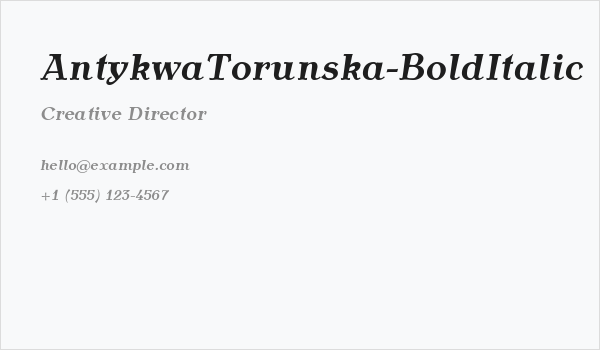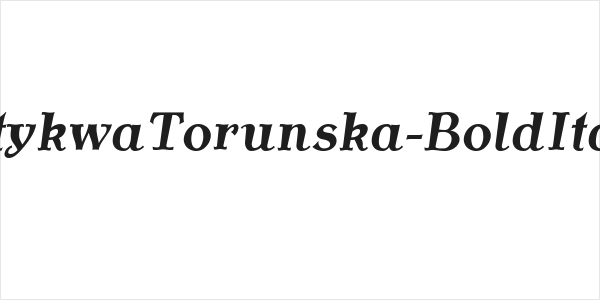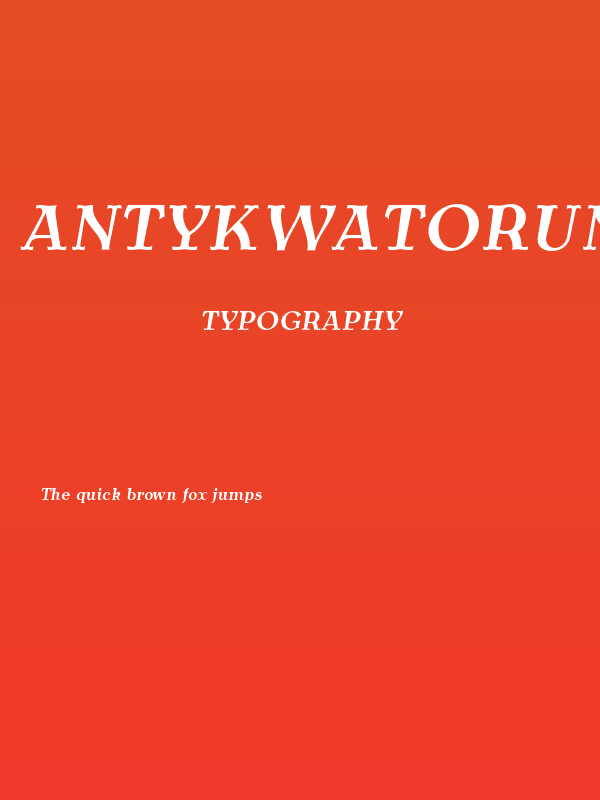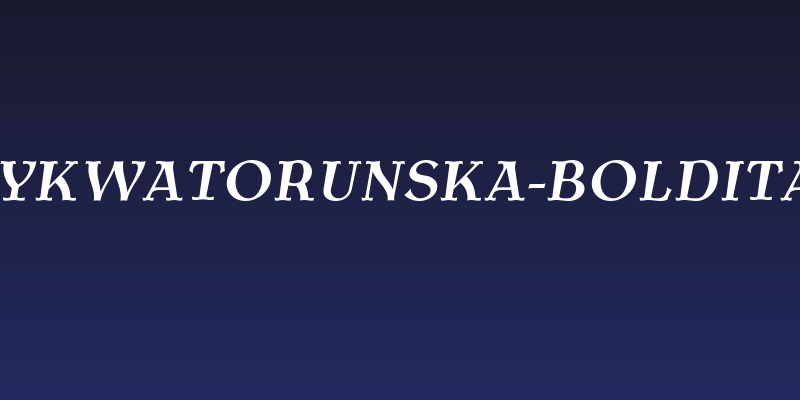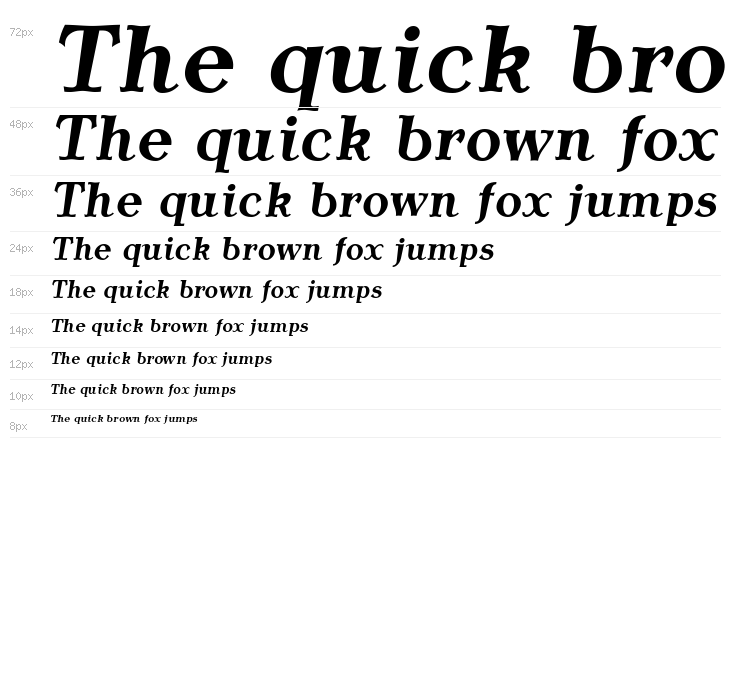
AntykwaTorunska-BoldItalic Font
AntykwaTorunska-BoldItalic Description
This font features a classic serif style with a bold and italicized appearance, giving it a strong yet elegant look. The serifs are pronounced, adding a traditional touch, while the italic slant introduces a dynamic feel. The characters are well-proportioned, with a medium contrast between thick and thin strokes, enhancing readability. The numerals and special characters maintain the same stylistic elements, ensuring consistency across all glyphs. This font's design is suitable for projects that require a blend of classic and modern aesthetics.
| Proposed Projects | Ideal for book covers, editorial design, branding, and formal invitations. |